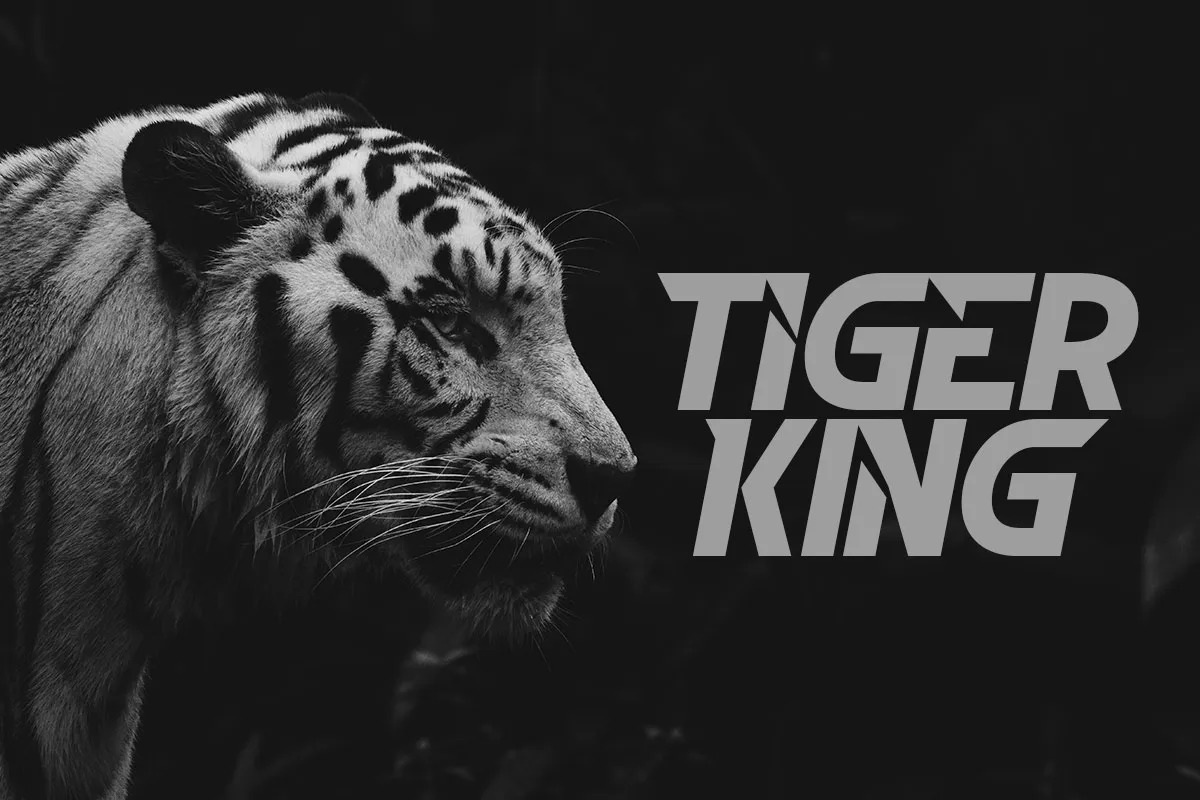
Emizen Display Font
It’s a cool and bold display font that carries a vision of elegance, simplicity and modernity. This font is impressive and features uniquely shaped letters, and as a result, it will easily match a variety of creations that require a different touch. suitable for advertising purposes, sublimation, t-shirts, racing and entertainment elements